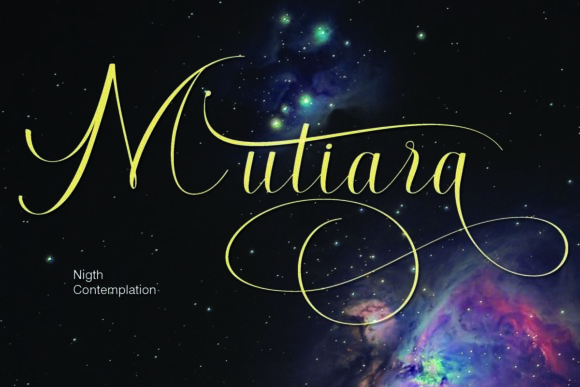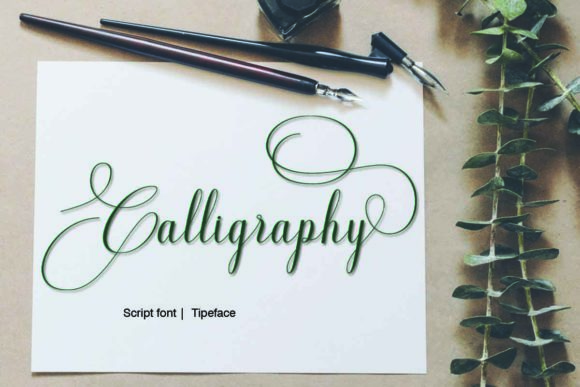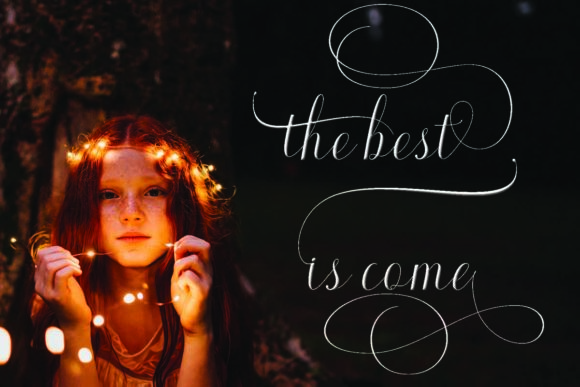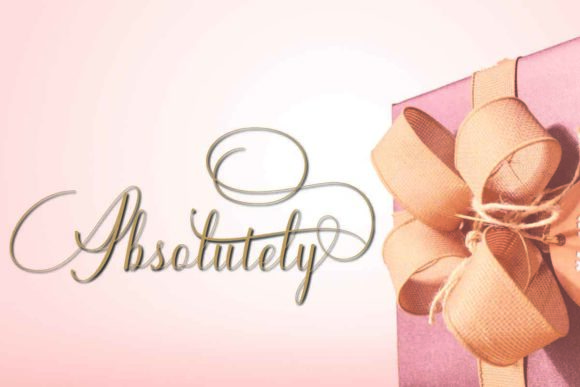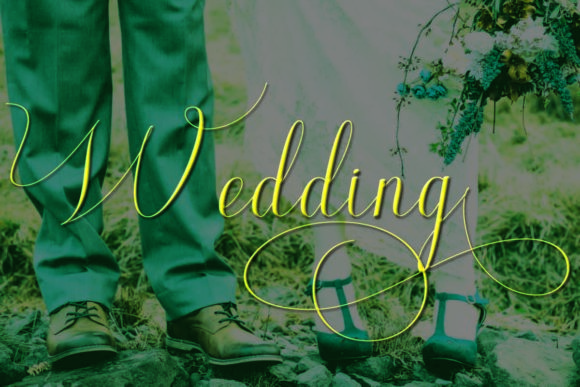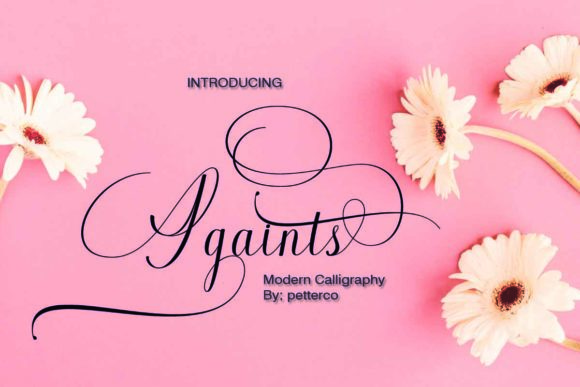
Againts Font
About Againts Font
The Againts is a fresh and modern script font. It has a handmade calligraphy style with a classic and elegant touch.
It can be used for various purposes such as: greeting cards, magazine titles, business cards, quotes, posters, signatures, logos, wedding invitations, and much more!